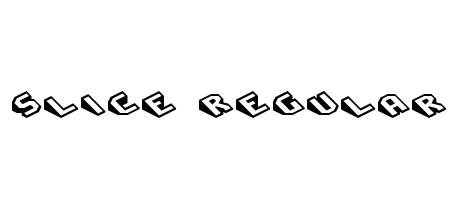
Slice
By Christian Munk
Slice Regular: A bold, playful font with a distinct three-dimensional effect. Each letter appears to be a solid block, slightly skewed, giving it a retro, almost pixelated vibe. The strong outlines and sharp angles create a sense of energy and dynamism. It's a fun choice for titles or anything needing a touch of retro-futuristic flair.